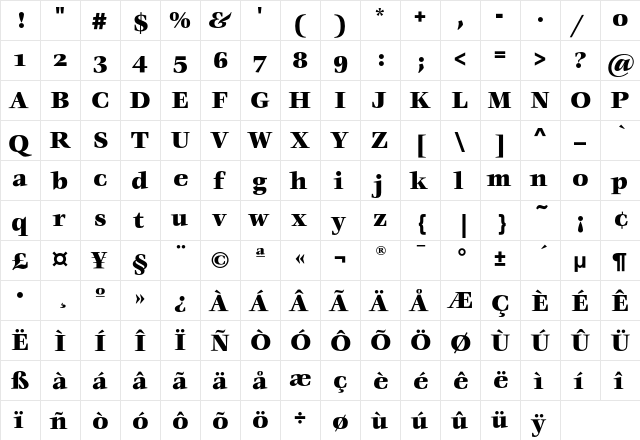
VeljovicEF BlackOsF
Design Context for VeljovicEF Typeface
VeljovicEF takes a measured approach to typography — its balanced proportions and neutral character make it a reliable workhorse for both digital and print work.